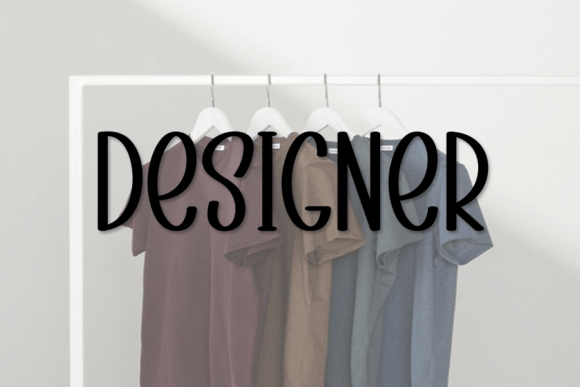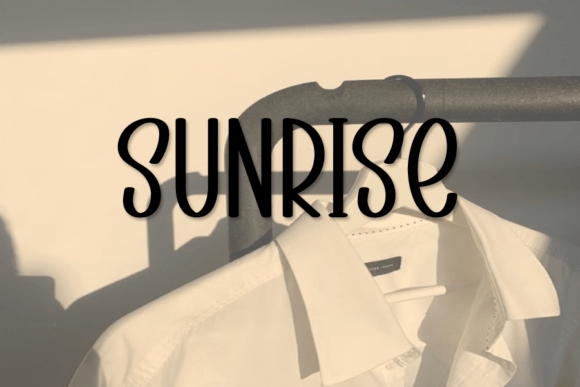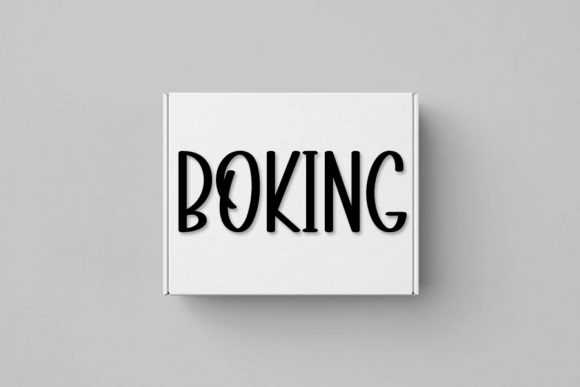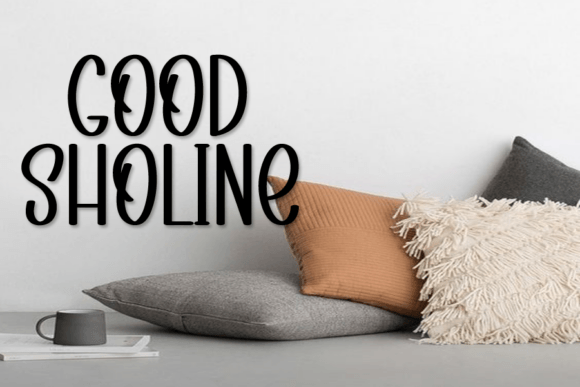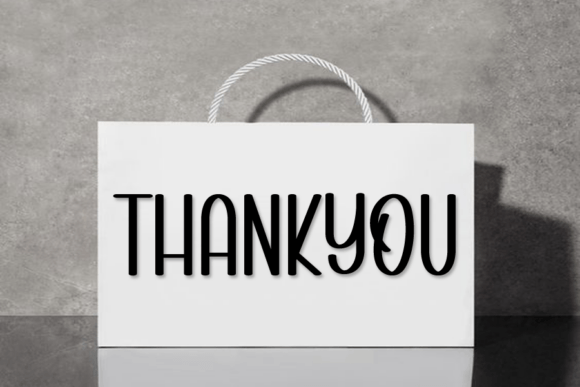
The Blush Maguire Font: A Fun and Quirky Addition to Your Design Arsenal
This fun and quirky font has become a staple in my design library, and I’m excited to share its awesomeness with you. Whether you’re a designer, crafter, or creative hobbyist, Blush Maguire is sure to elevate your creations and add a touch of personality to your projects.
An Honest Review of Blush Maguire
- ✨ Unique and quirky character set that’s sure to stand out
- ✅ Highly versatile and suitable for a wide range of projects, from logotypes to posters
- 💥 Excellent for creating eye-catching headlines and titles
- 🎨 Works beautifully with illustrations, cartoons, and comics
- 🤔 May not be the best choice for body text or long-form content due to its playful nature
- ⚠️ Some characters may not work well at very small font sizes
A Practical Guide to Using Blush Maguire
The Designer Inspiration Behind Blush Maguire
Blush Maguire was designed with the intention of creating a font that’s both playful and sophisticated. The designer wanted to create a font that would add a touch of personality to any project, while still being legible and easy to read. The result is a font that’s perfect for a wide range of creative projects.
Q: What type of projects is Blush Maguire best suited for?
A: Blush Maguire is a versatile font that’s suitable for a wide range of projects, including logotypes, headlines, posters, comics, cartoons, and social media graphics.
Q: Does Blush Maguire come with any special features?
A: Yes, Blush Maguire comes with a range of OpenType features, glyphs, and stylistic alternates that can be used to customize the font and add more personality to your designs.